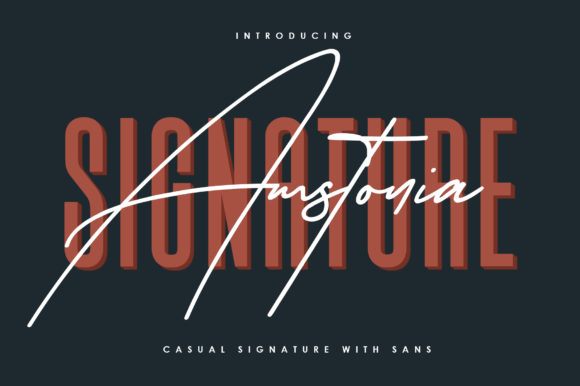
Unleash the allure of your creative endeavors with Amstonia Signature Font, a remarkable duo font that captivates with its exquisite charm. This font family, adorned with a captivating sans serif and an elegantly flowing script, is poised to elevate your designs to unprecedented heights of visual artistry.
Amstonia Signature Font stands tall as a paragon of versatility, seamlessly adapting to a vast spectrum of design projects, effortlessly transforming them into masterpieces of visual eloquence. Its inherent versatility empowers you to seamlessly integrate it into your web designs, branding projects, marketing campaigns, and any other creative venture that demands a touch of elegance and individuality.
Step into a realm of endless possibilities, where Amstonia Signature Font seamlessly blends with your creative vision. Its delicate curves and graceful strokes add an air of sophistication to wedding invitations, bestowing them with a timeless charm that resonates with hearts. Unleash your creativity and craft awe-inspiring logos that command attention, leaving an indelible mark on your audience's minds.
With Amstonia Signature Font, you hold the key to unlocking a treasure trove of creative possibilities. Its versatility extends to social media posts, adding a touch of elegance to your every message. Elevate your branding efforts by incorporating this font into your business cards, letterheads, and brochures, ensuring that your brand identity exudes professionalism and creativity.
Embrace the allure of Amstonia Signature Font, an extraordinary creation designed to ignite your creative spark and captivate your audience. Its meticulously crafted characters, brimming with personality and charm, will transform your designs into captivating works of art. Experience the transformative power of Amstonia Signature Font today and embark on a journey of creative brilliance!